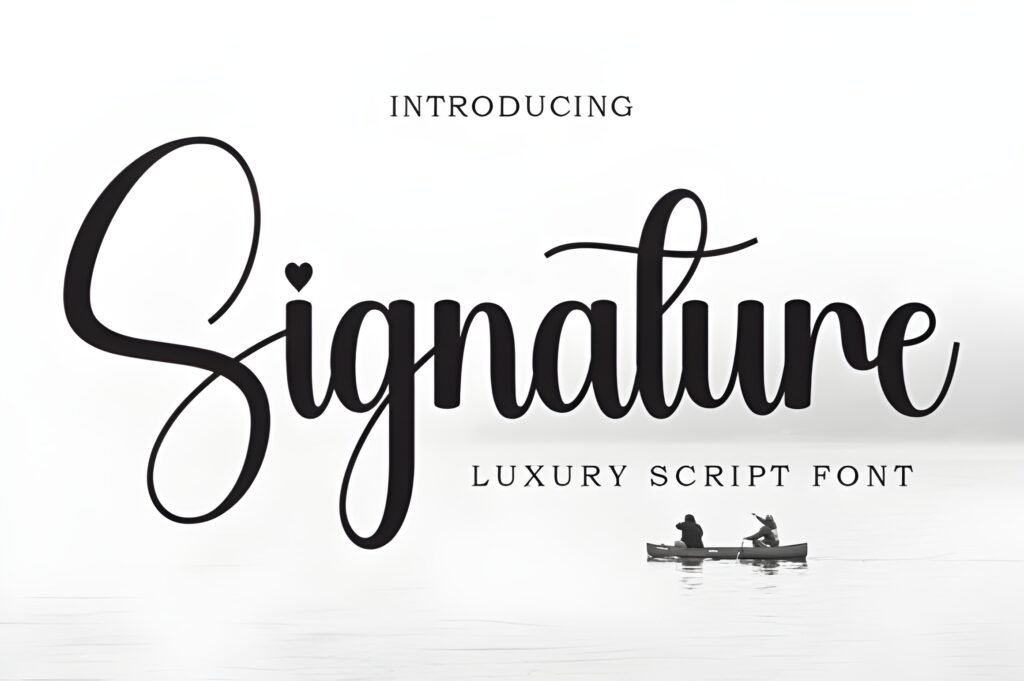
✒ Signature — Where Elegance Signs Your Story
Every stroke of Signature feels like ink gliding effortlessly across fine paper — graceful, fluid, and full of quiet allure. This enchanting cursive font captures the intimacy of handwriting with a touch of refined artistry, balancing playfulness and romance in perfect harmony.
Ideal for distinctive branding, exquisite logos, wedding invitations, and heartfelt cards, Signature lends designs a sense of luxury wrapped in relaxed sophistication. It pairs beautifully with fashion lookbooks and polished marketing, leaving behind not just words, but an impression.
With Signature, your projects don’t just speak — they leave their mark.